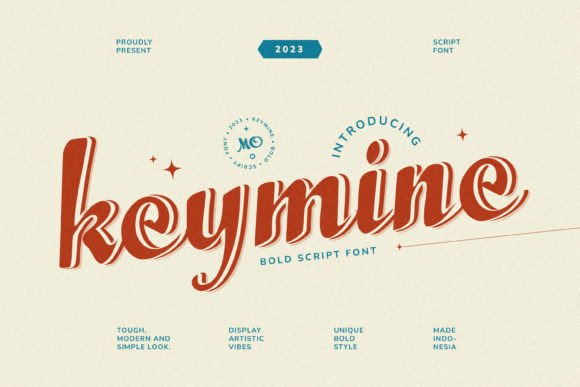
In a world of monotonous, run-of-the-mill fonts, Keymine stands as a radiant beacon of creativity, a masterpiece forged with a daring spirit. Its makers, inferno.type3, have infused every stroke with passion, resulting in a script font family that commands attention and captivates hearts.
Keymine is more than just a collection of glyphs; it's a symphony of characters, each a visual masterpiece that dances across the screen with elegance and grace. Its dynamic, brush-inspired letters exude confidence, an energy that sets it apart from the ordinary, making it the perfect choice for impactful headlines, logos, and branding materials.
Step into the realm of design brilliance with Keymine, where your words will take on new life, imbued with an audacity that reflects your unyielding spirit. Its modern, sleek appearance will add a touch of sophistication to any project, making it a versatile tool for both personal and professional endeavors.
Keymine's artistry shines through in every curve and angle, a testament to the power of creativity. Its letters intertwine harmoniously, forming words that captivate and compel, leaving an indelible impression on all who behold them.
Embrace Keymine's allure, unleash your individuality, and watch as your designs take flight. It's the perfect font for those who seek to stand out, to make a statement, and to leave an enduring legacy. Let Keymine be your muse, guiding you to the pinnacle of creativity.